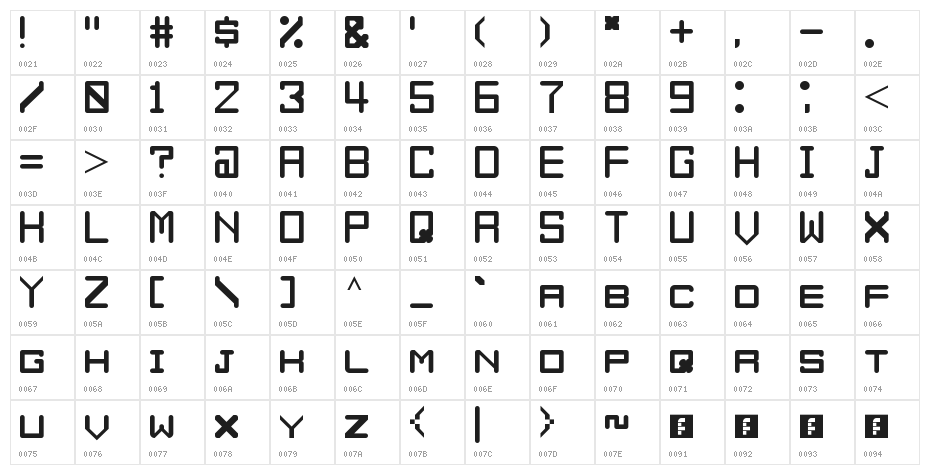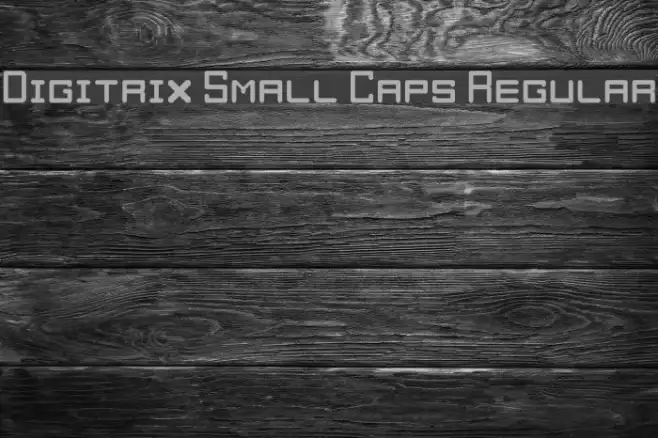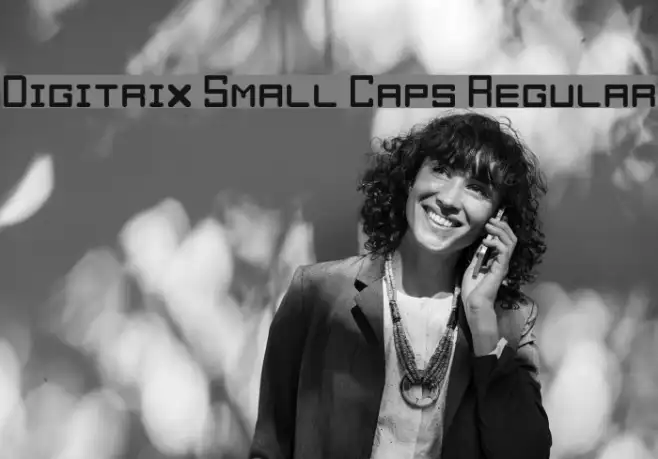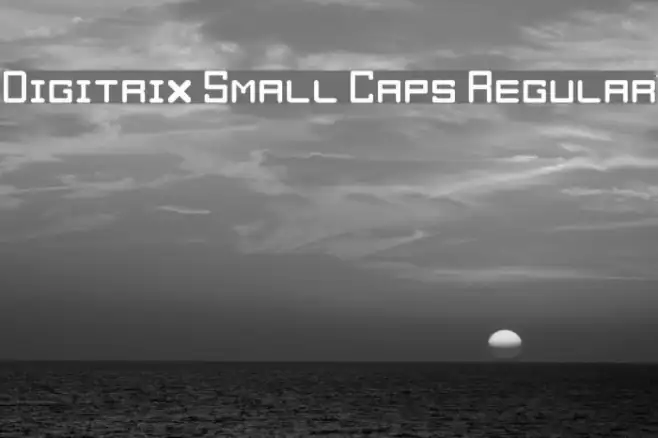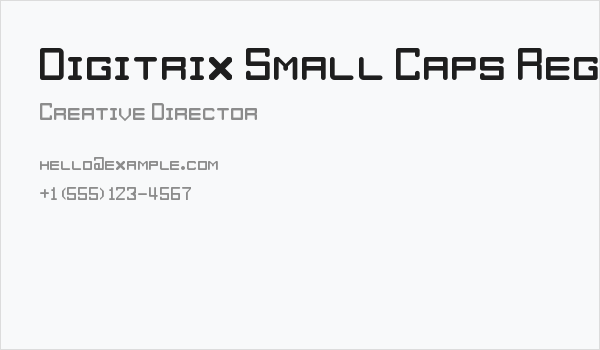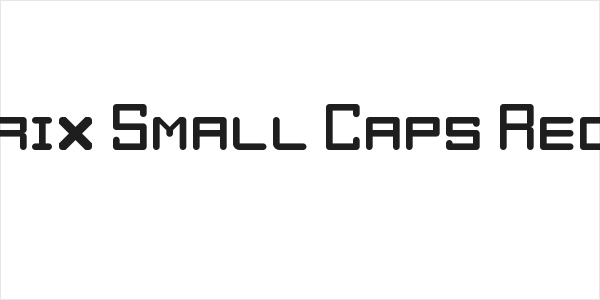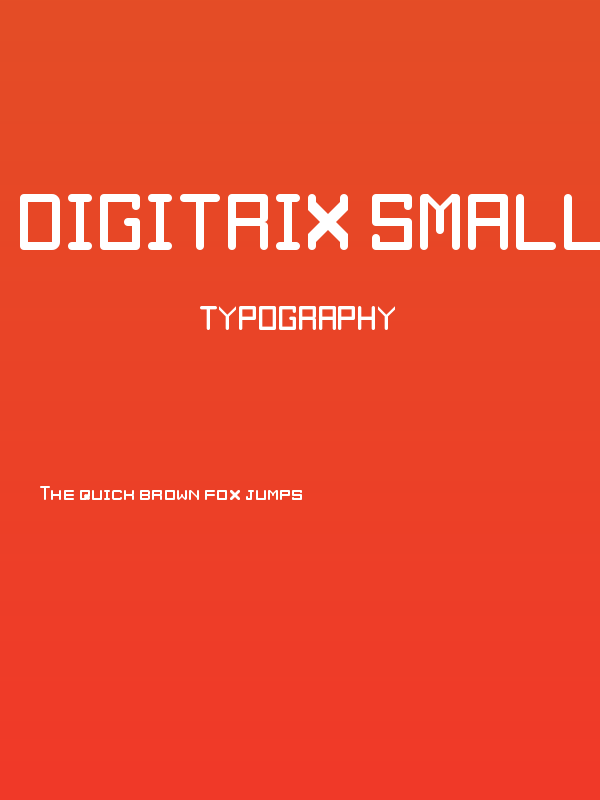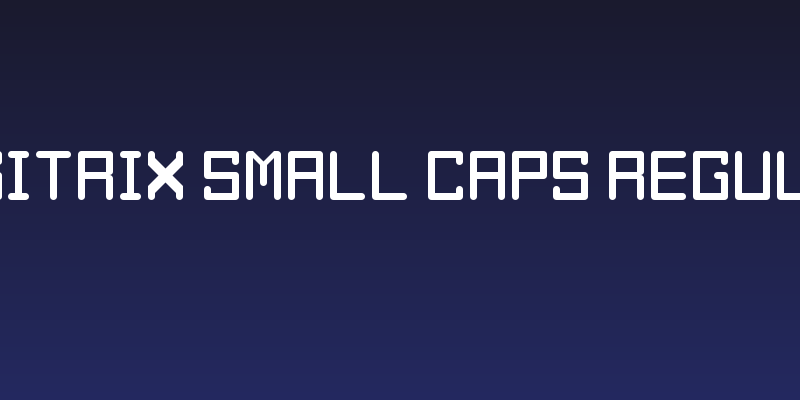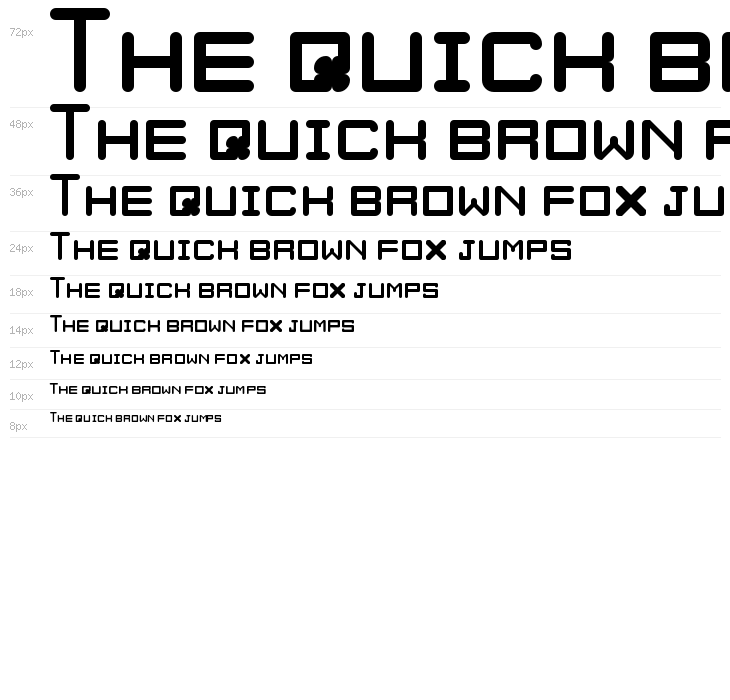
Digitrix Small Caps Regular Font
Digitrix Small Caps Regular Description
This font features a geometric, digital-inspired design with uniform stroke widths and a blocky, angular appearance. The characters are constructed with straight lines and sharp angles, giving it a futuristic and technical feel. The uppercase and lowercase letters are similar in height, emphasizing a small caps style. The numerals and special characters maintain the same geometric consistency, enhancing the overall cohesive look. This font is ideal for projects that require a modern, tech-oriented aesthetic, such as digital interfaces, tech branding, or futuristic themes.
| Proposed Projects | Ideal for digital interfaces, tech branding, futuristic themes, and modern design projects. |